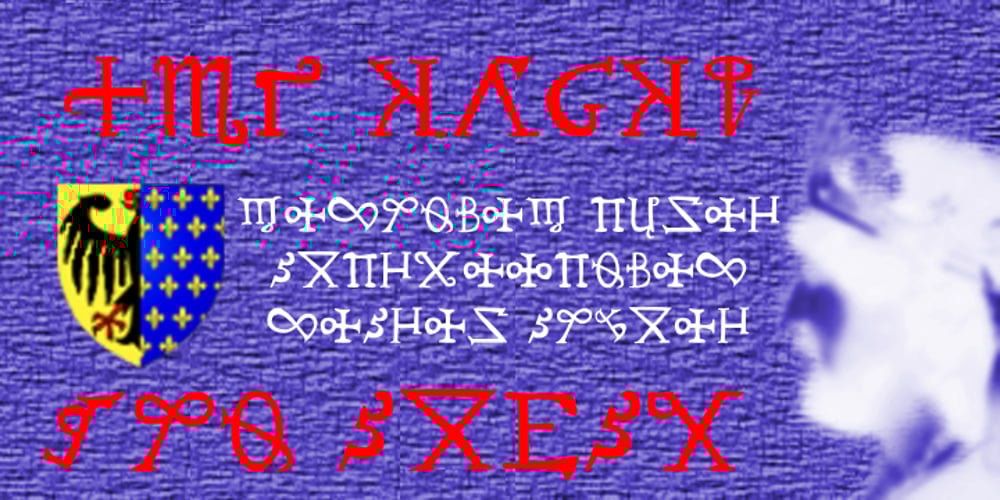
Big Chuck Font Family was designed by Shane Brandes and published by Proportional Lime. Big Chuck contains 1 styles and family package options. Charlemagne, one of the great rulers of the Middle Ages, was instrumental in the reestablishment of formal education in the West. This font was inspired by the notion that he felt the need to protect his communications from people with the ability to read; a rare skill then. Did he really command such a script to exist? He did instigate the development Carolingian minuscule script. Here are two different systems that are both attributed to him. Does it provide any real security? No, but it is fun to think about how such a system might have been used.